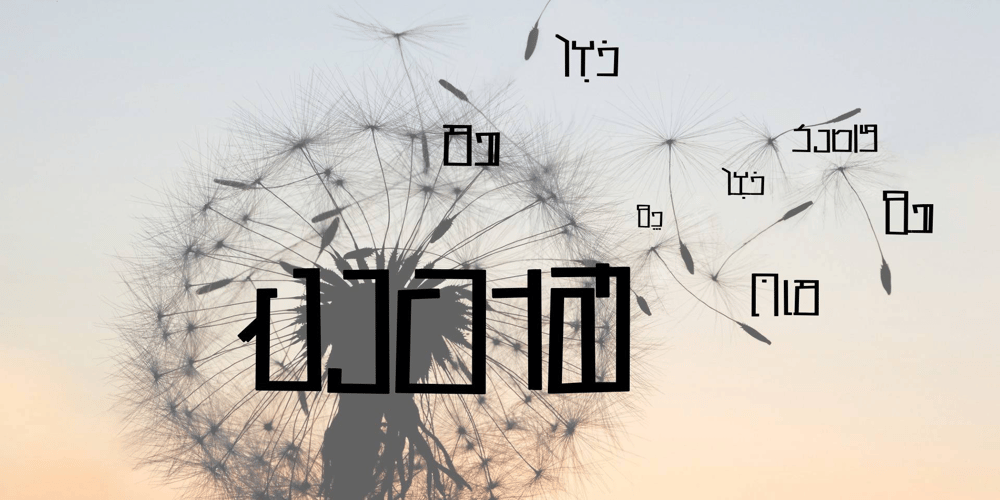
Ghasedakan Font Family was designed by Aria Fakhari and published by Fakharia. Ghasedakan contains 5 styles and family package options. Ghasedakan (قاصدکان, DandelionPuff) font family is the inaugural fantasy font designed around the proposed perso-arabic writing system. This pioneering endeavor aimed to evaluate the viability of the proposed writing system in a challenging context.The font family comprises five disconnected font styles, differing from the traditional Arabic conjoint styles. The capital (Isolated ) letters are also modified to present a more harmonious aesthetic.ghasedakan LP (Less Point) thin denotes the dot-reduced version, wherein glyphs containing two or more dots are substituted with new dotless shapes. It is important to note that, with the exception of the ghasedakan thin style, all other styles utilize the reduced dots alphabet.The ghasedakan MC (Mixed Case) thin emulates Latin fonts, enabling typists to toggle between lowercase and uppercase letters through a software shift key. This software shift feature can be activated or deactivated by inputting two consecutive Alef_Hamza_above/Alef_Hamza_below letters. more…The final two styles consist of the Small Caps (ghasedakan SC thin) and All Caps (ghasedakan AC thin) versions within this font family.Please be advised that additional related styles are available within the ghasedak font family.The Latin portion of this font family draws inspiration from the Home Square font, featuring new lowercase letterforms and numerous additional glyphs.